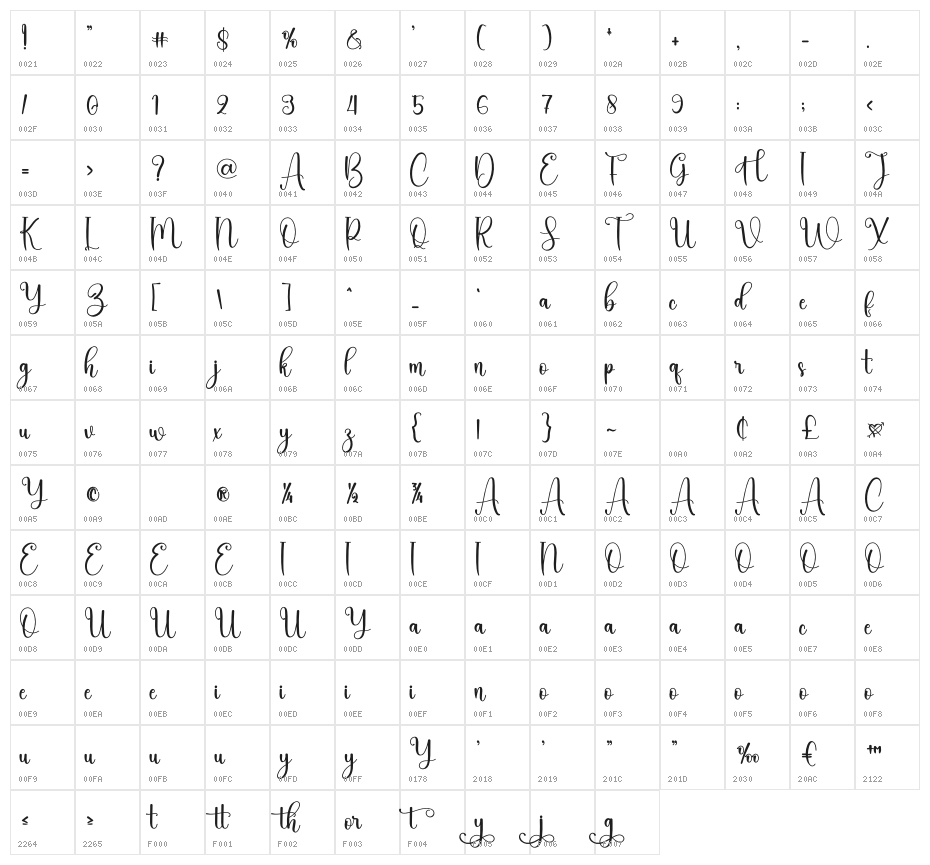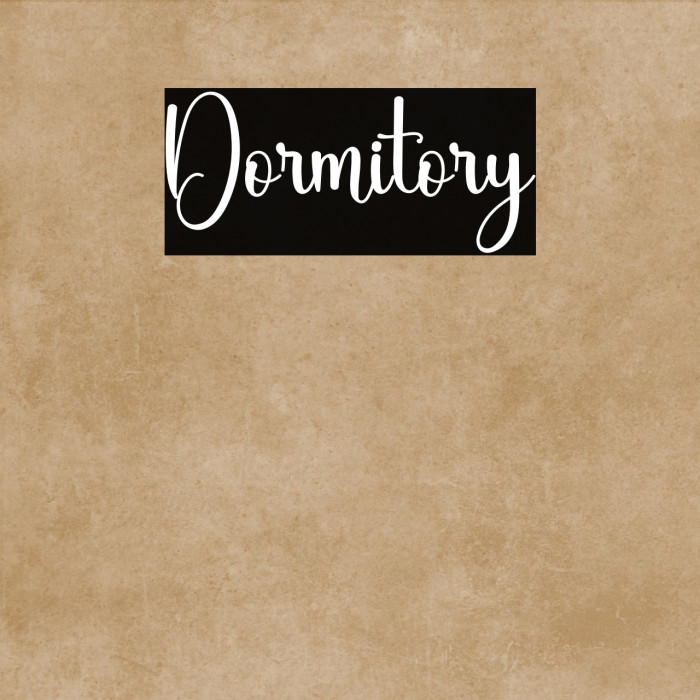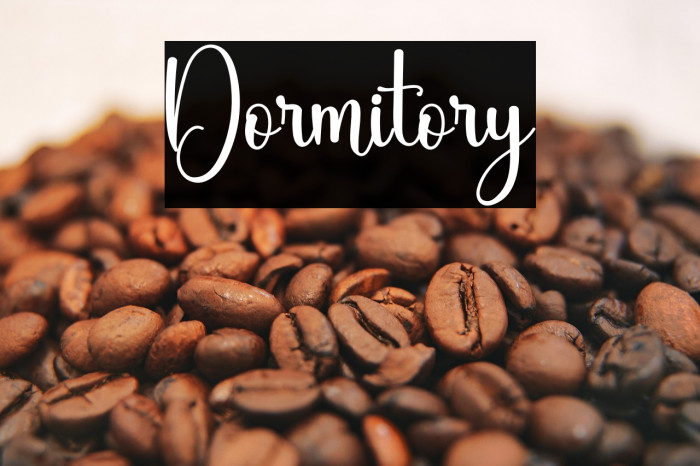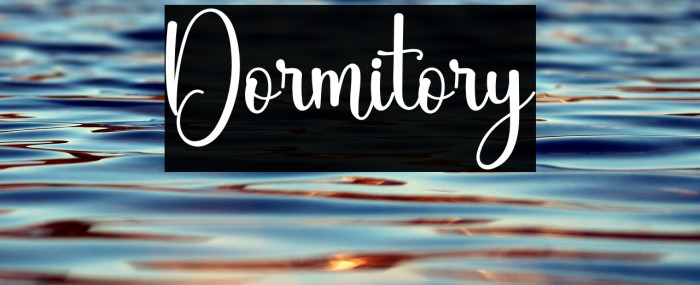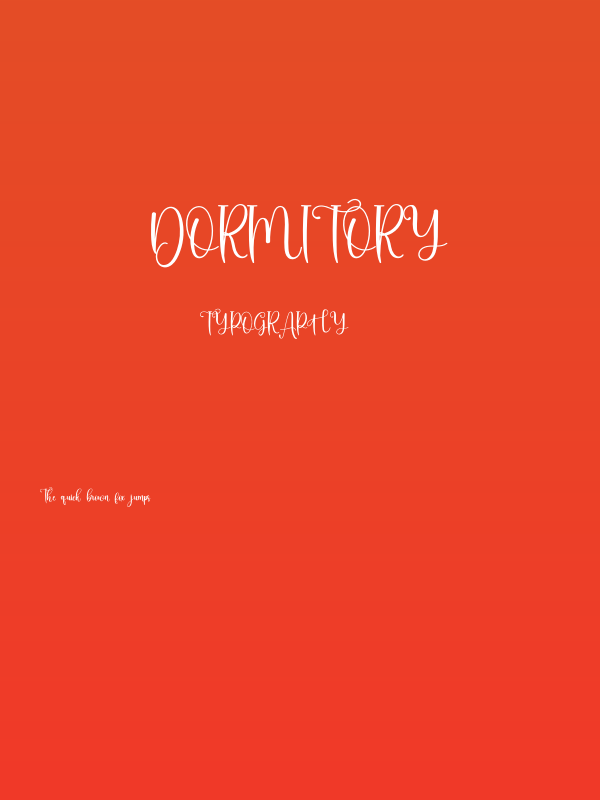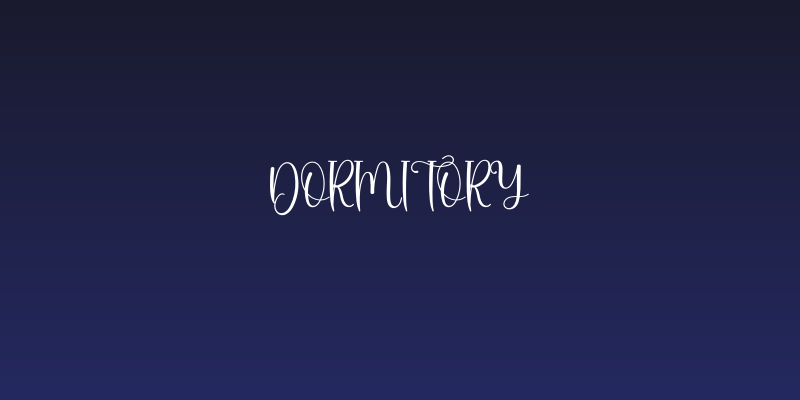
Dormitory Font
Dormitory Description
This font features a playful and elegant script style with a handwritten appearance. The letters are characterized by their flowing, cursive forms and varying stroke widths, giving it a dynamic and lively feel. The uppercase letters are tall and slender, while the lowercase letters are more rounded and compact, creating a harmonious balance. The numerals and special characters maintain the same whimsical style, ensuring consistency across all elements. This font is ideal for projects that require a personal touch, such as invitations, greeting cards, and branding materials.
| Use Case | Logos, Headlines, Invitations |
| Proposed Projects | Ideal for invitations, greeting cards, branding materials, and any project requiring a personal touch. |